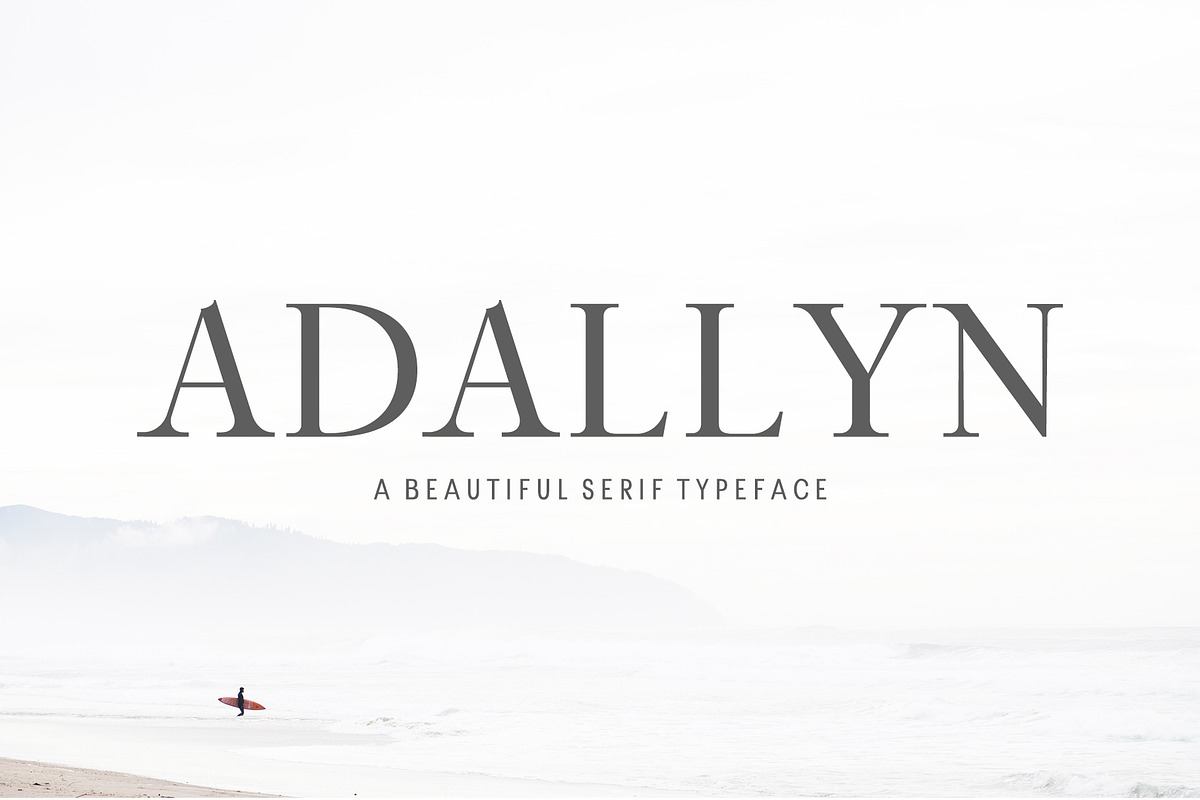
Adallyn Serif Font Family Free Download is an elegant and versatile typeface family that brings sophistication and style to your projects. With a wide range of weights and styles, this font family is perfect for editorial design, branding, logos, packaging, and websites. Its timeless serifs, clean lines, and refined structure make it ideal for both professional and creative applications.
Whether you're crafting a premium brand identity, designing a sleek magazine layout, or building a polished website, Adallyn adds a touch of elegance and readability to your typography. It’s the perfect font family for designers who appreciate classic refinement with modern appeal.